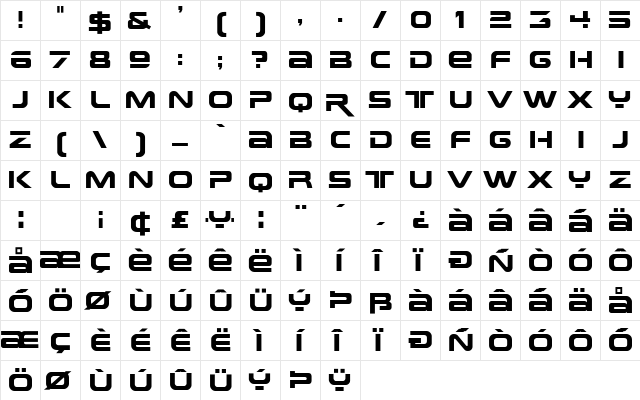
Sci-Fi Normal
Design Context for Sci-Fi Typeface
Sci-Fi has a distinctly futuristic character, with geometric precision and clean angles that feel at home in technology, gaming, and sci-fi contexts.
Pro Tip: Use Sci-Fi in combination with a neutral sans for body text. Let it define the brand voice in headlines while keeping reading comfortable elsewhere.